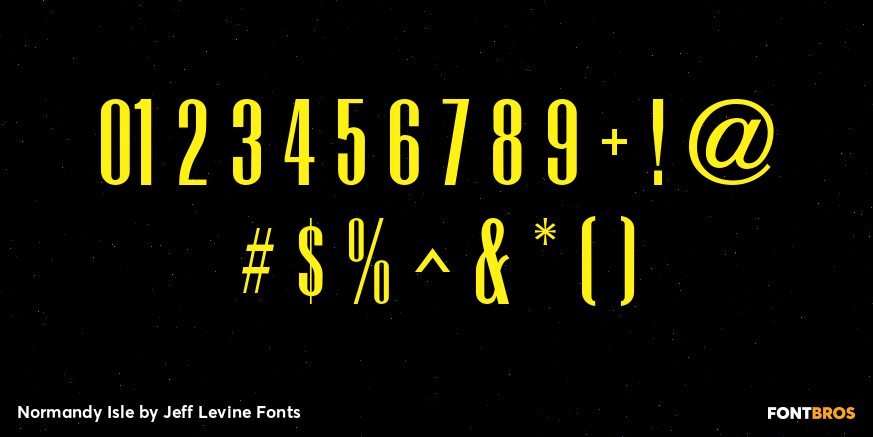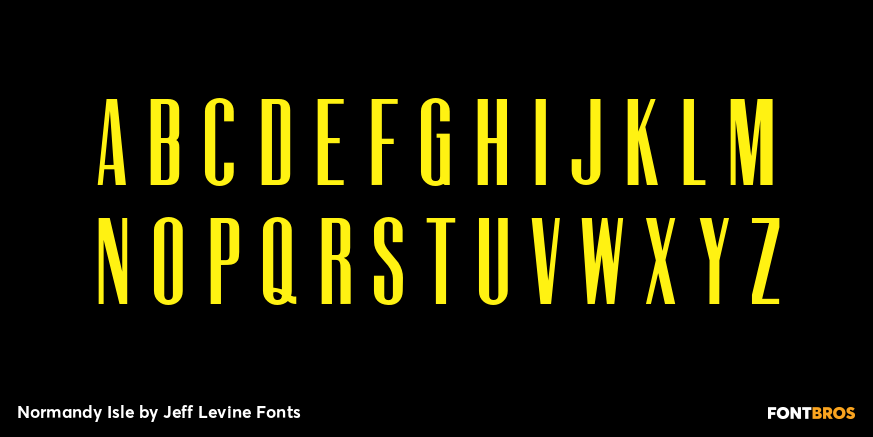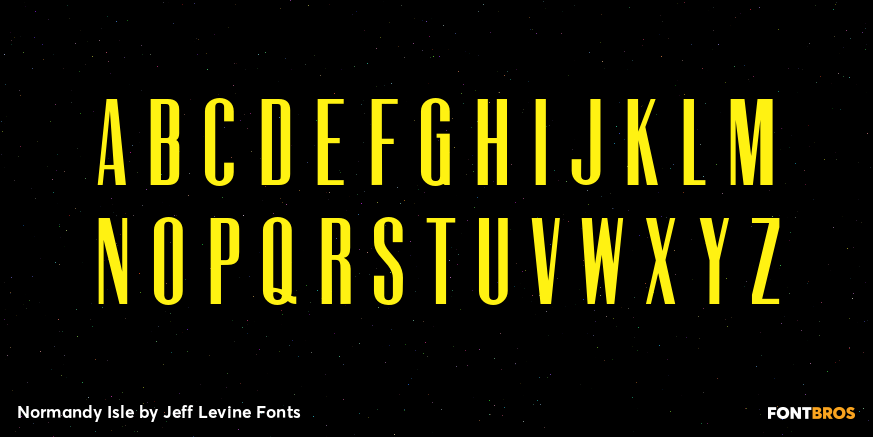
Normandy Isle
Normandy Isle JNL is a condensed sanserif typeface built off of the basic design of an old wood type, but augmented with thick and thin lines to create a whole different look. The font itself is named after a community in the North end of Miami Beach.